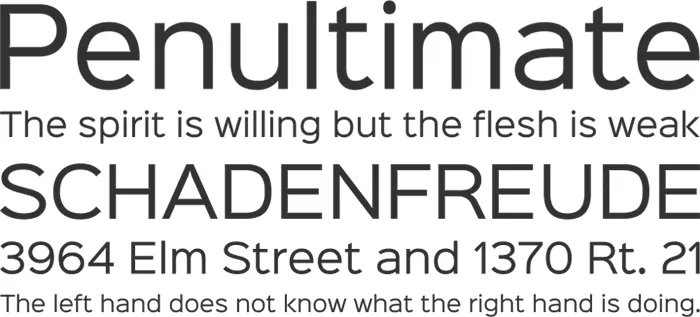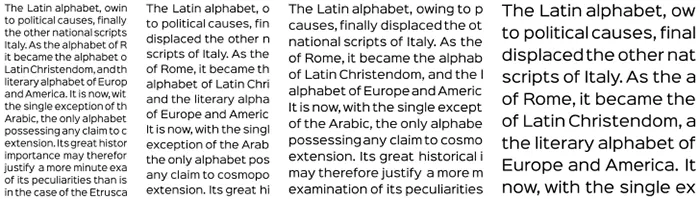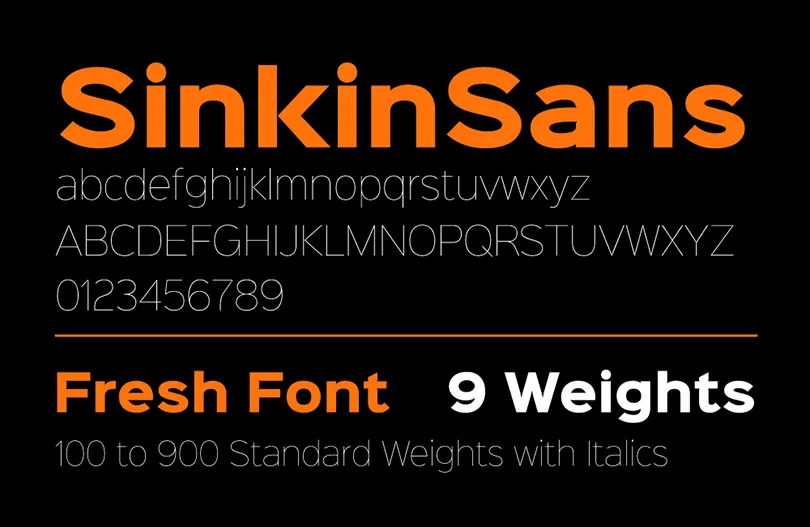
SinkinSans is a modern, clean, and highly readable sans-serif font family designed with a fresh and elegant typographic style. Its balanced proportions and subtle detailing make it suitable for both digital and print design projects. Whether you are working on websites, mobile apps, brochures, flyers, branding materials, or UI/UX designs, SinkinSans delivers clarity and visual harmony across all use cases.
This font family includes 9 standard web weights ranging from 100 to 900, along with matching italics, making it a complete representation of the CSS numerical font-weight scale. Designers and developers can easily test typographic hierarchy, responsiveness, and readability using a single, consistent font family. The wide weight range allows SinkinSans to perform equally well for body text, headlines, and interface elements.
SinkinSans features tiny, carefully crafted notches at stroke intersections that subtly sink into verticals. These small incisions sharpen right angles, improve definition in complex glyphs, and enhance legibility in dense or compact layouts. The result is a refined typeface that maintains elegance without sacrificing functionality.